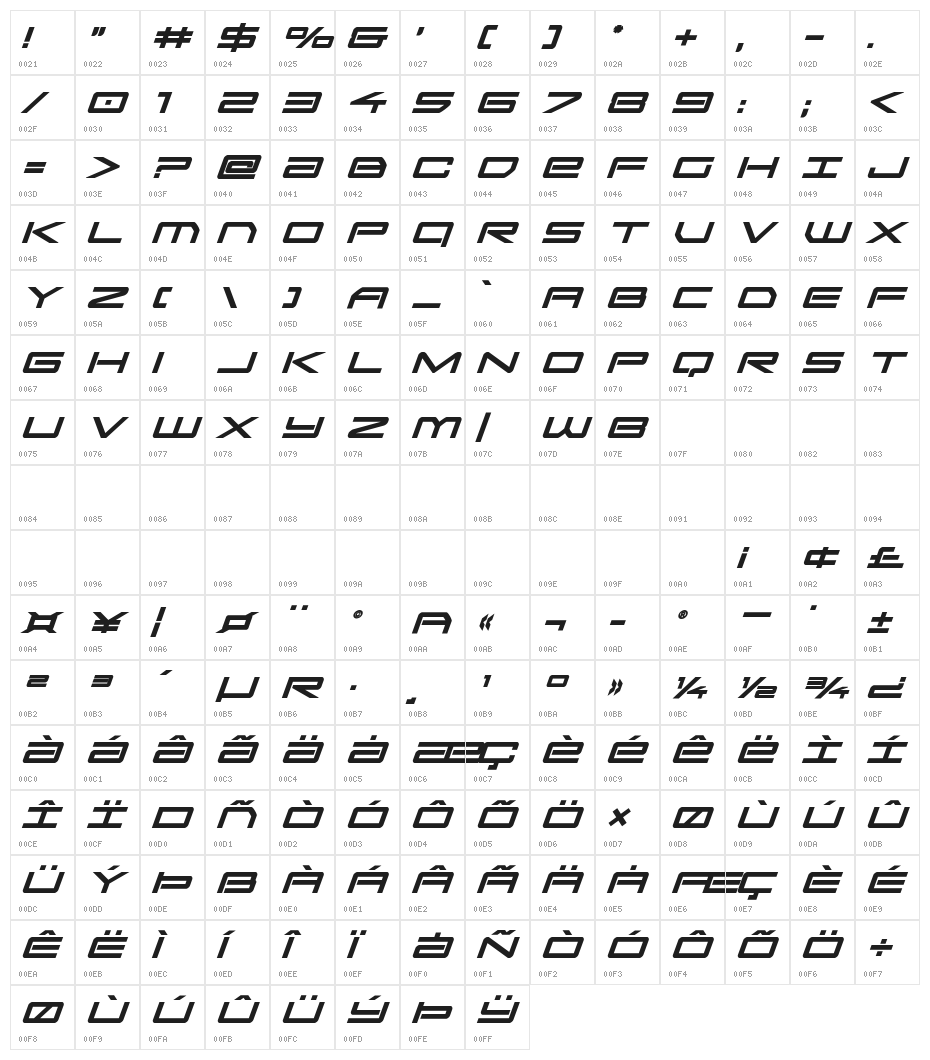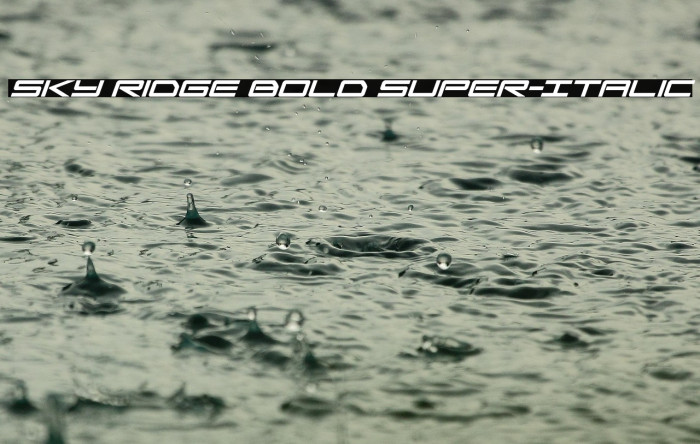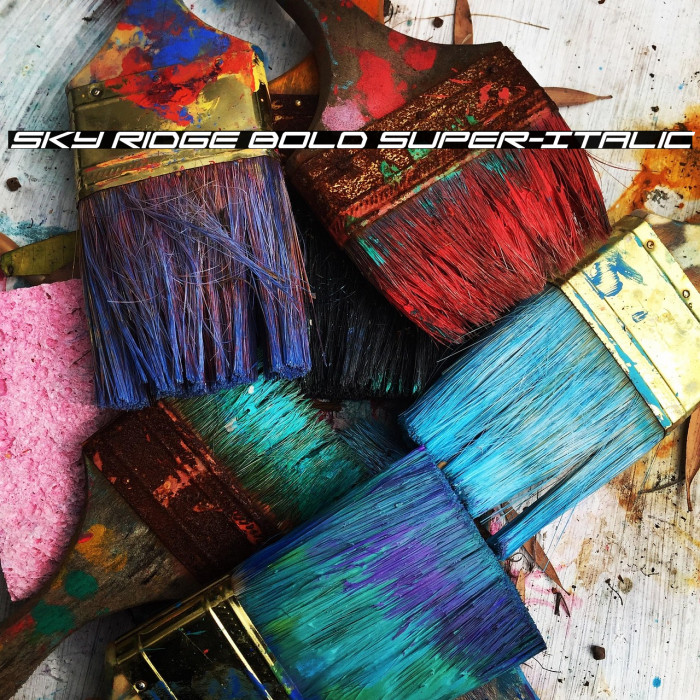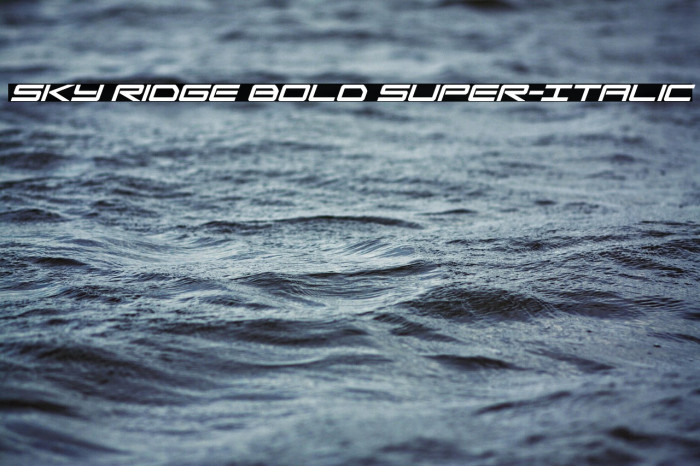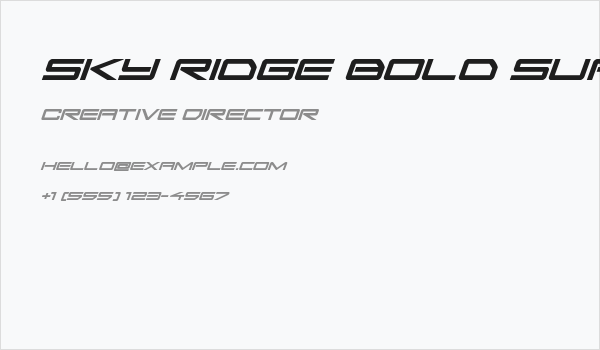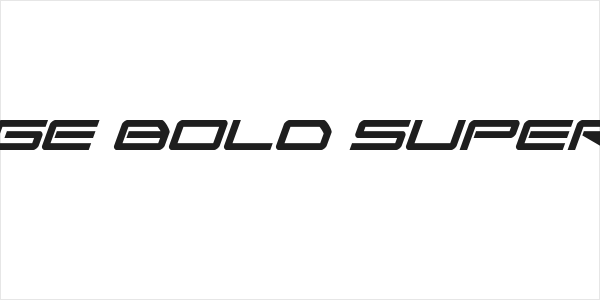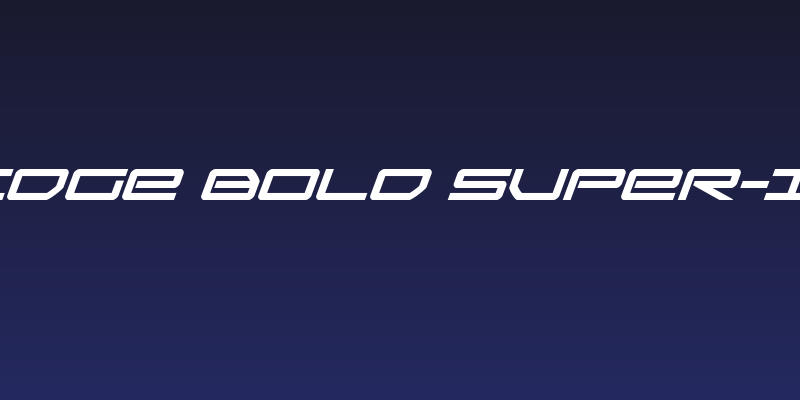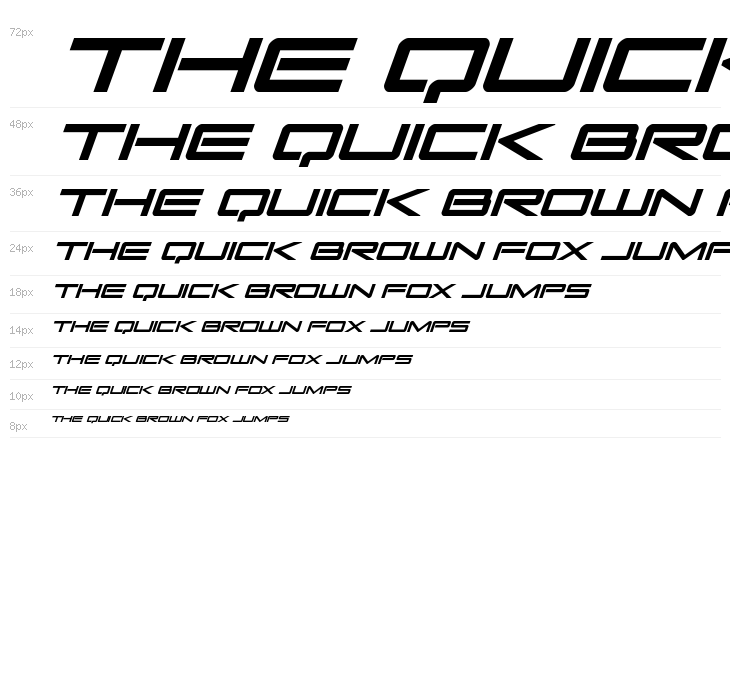
Sky Ridge Bold Super-Italic Font
Sky Ridge Bold Super-Italic Description
This font exhibits a futuristic and dynamic style, characterized by its bold and italicized letterforms. The angular and geometric shapes give it a sense of speed and modernity, making it ideal for projects that require a cutting-edge look. The uppercase and lowercase letters maintain a consistent slant, enhancing the italic effect. The numbers and special characters follow the same design principles, ensuring uniformity across all glyphs. The font's structure is clean and precise, with a slight emphasis on horizontal lines, adding to its sleek appearance.
| Use Case | Logos, Headlines |
| Proposed Projects | Ideal for technology branding, sports team logos, video game titles, and sci-fi movie posters. |